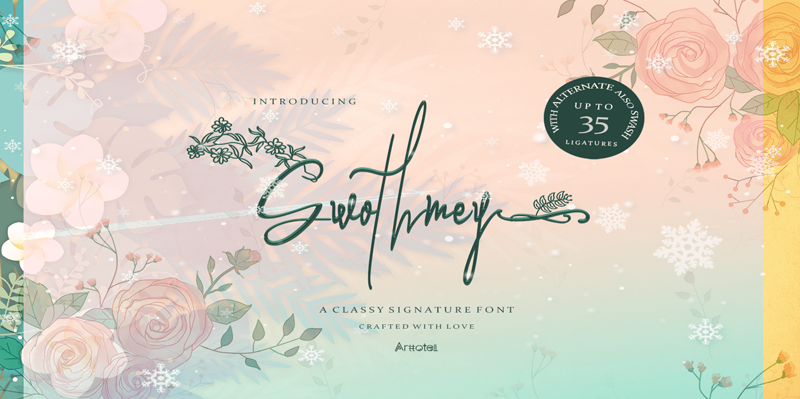
Font name: | Gwothmey |
Gwothmey is a stunning script with great legibility. It will make any design stand out. Thanks for checking out my store, and feel free to get in touch if you have any questions! arttotell@gmail.com www.creativefabrica.com/product/gwothmey/ref/235579/ Want to collaborate on branding design please follow me on Behance & Instagram to stay up to date for my latest job, and let's be friends - THANK YOU � |